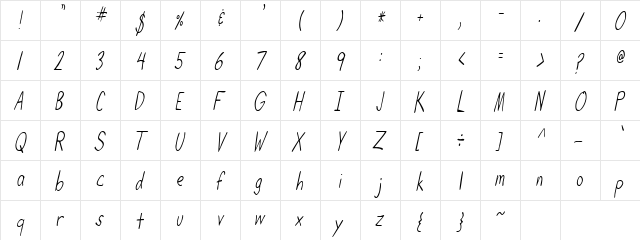
LifetimeCondensed Oblique Font Preview
Design Context for LifetimeCondensed Typeface
LifetimeCondensed takes a measured approach to typography — its balanced proportions and neutral character make it a reliable workhorse for both digital and print work. Its italic angle brings a sense of urgency and motion to the letterforms. Its narrow stance lets it pack a punch even in space-constrained designs.
Pro Tip: Use LifetimeCondensed for emphasis, pull quotes, and subheadings where its slanted energy can add rhythm to the layout.